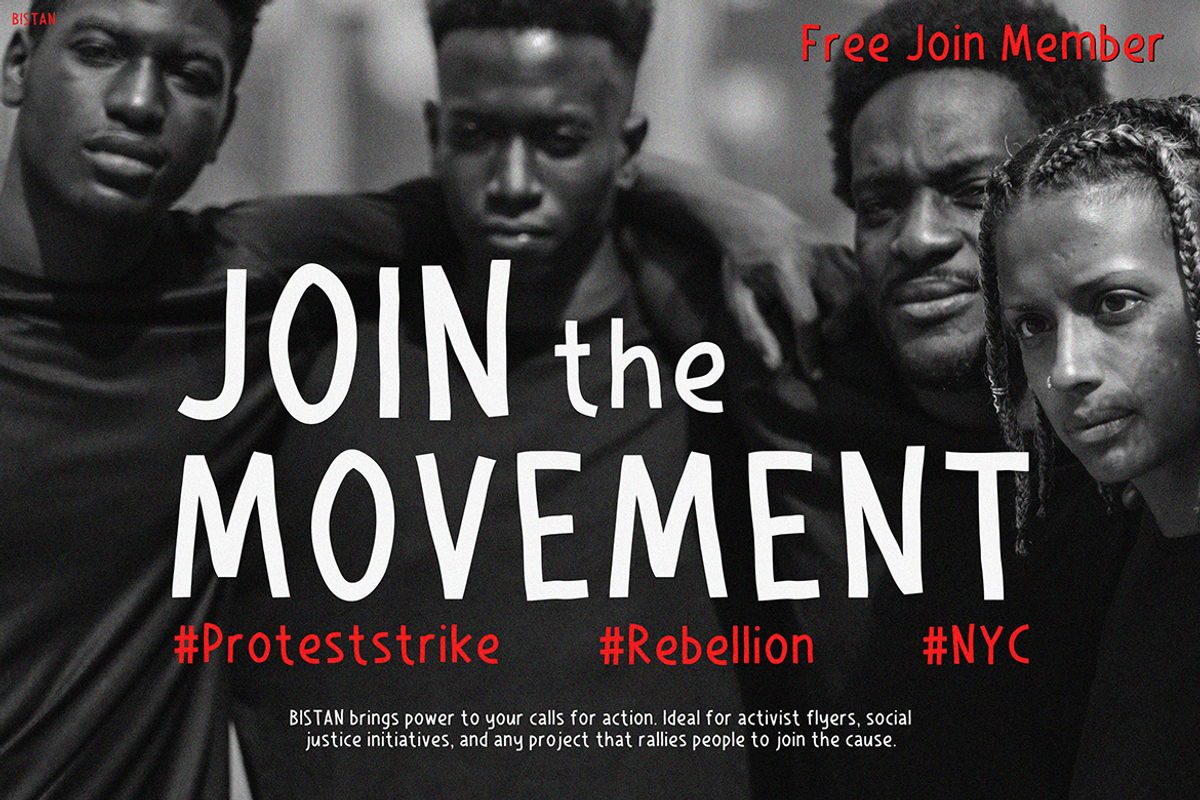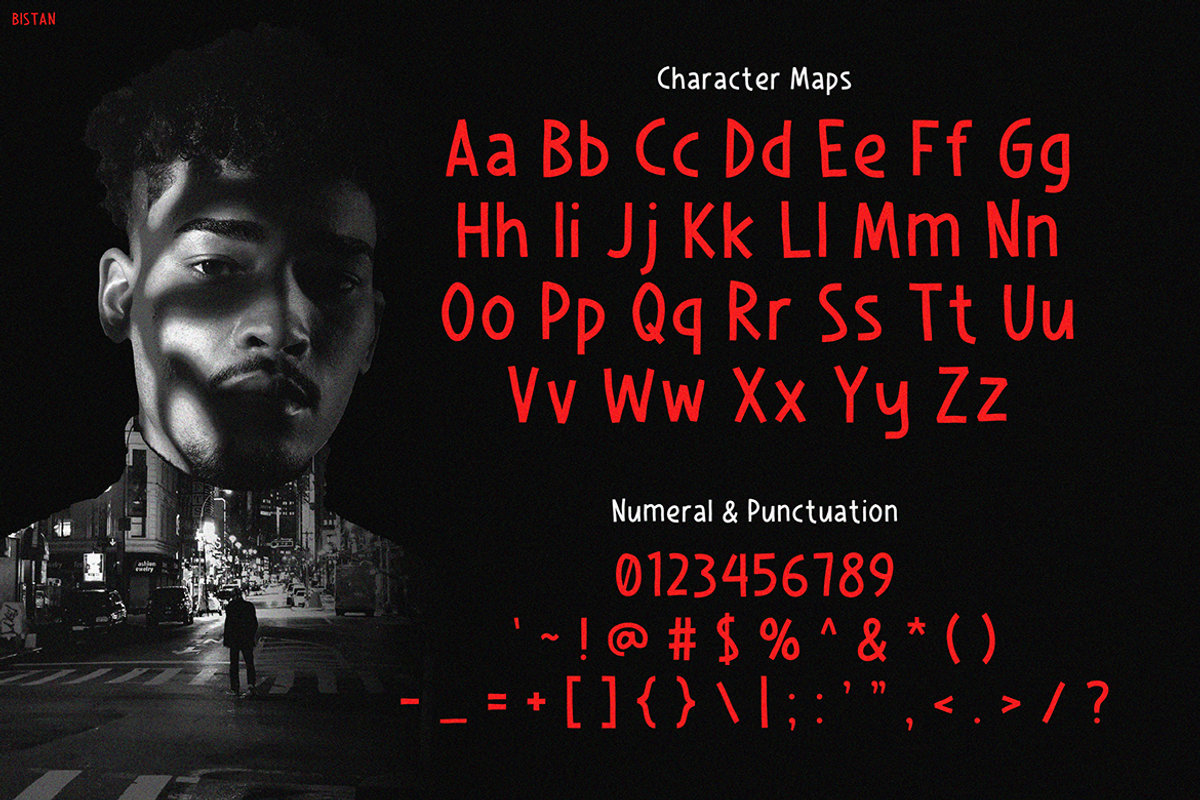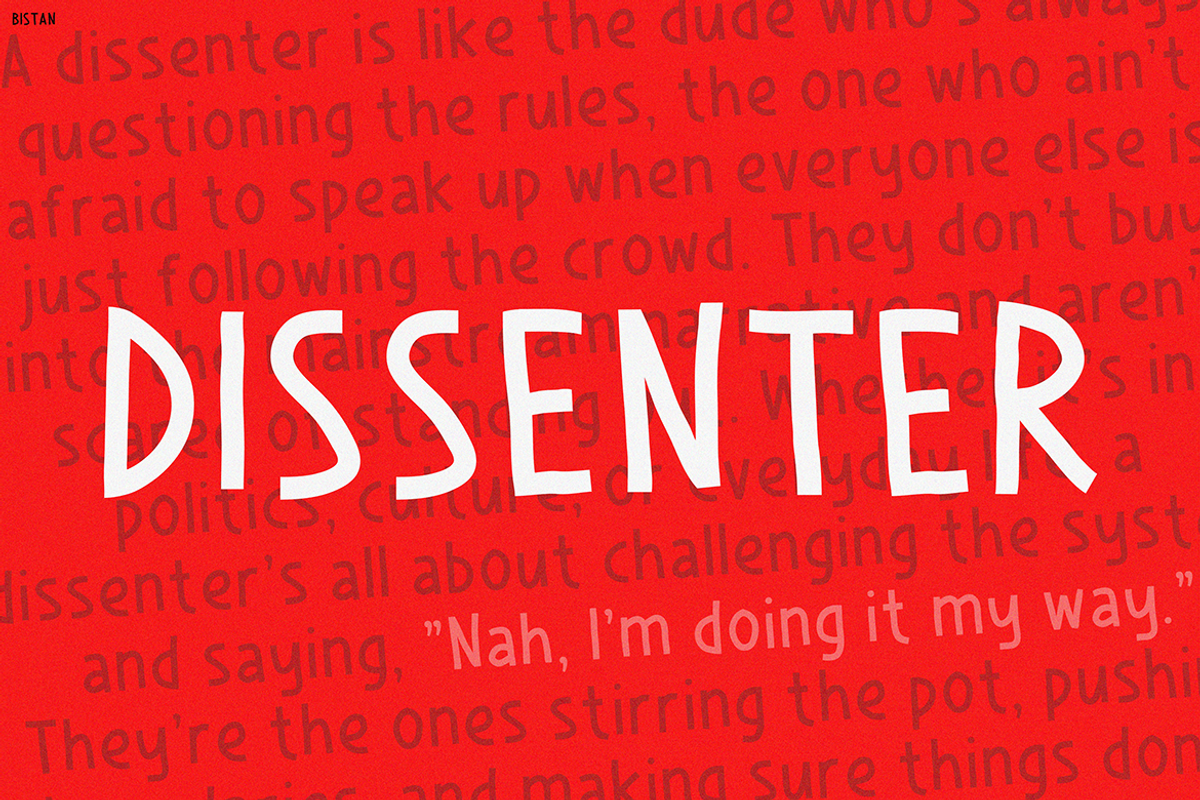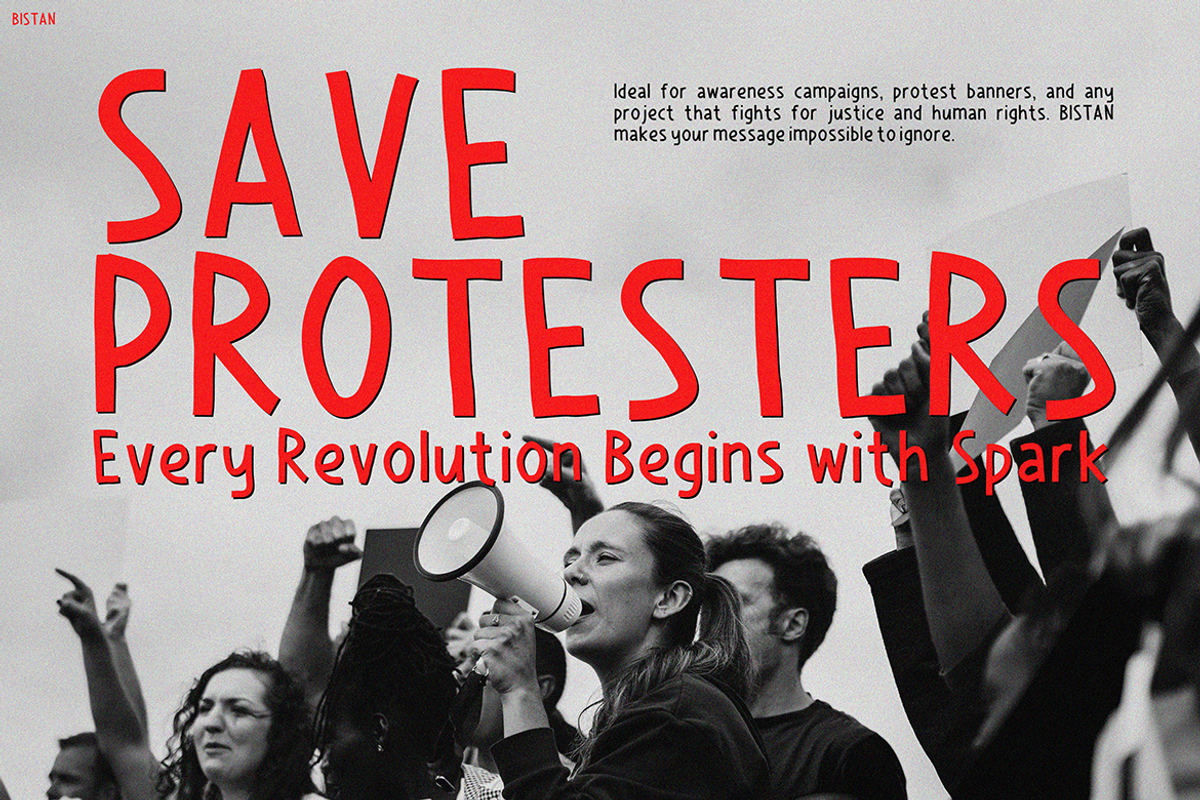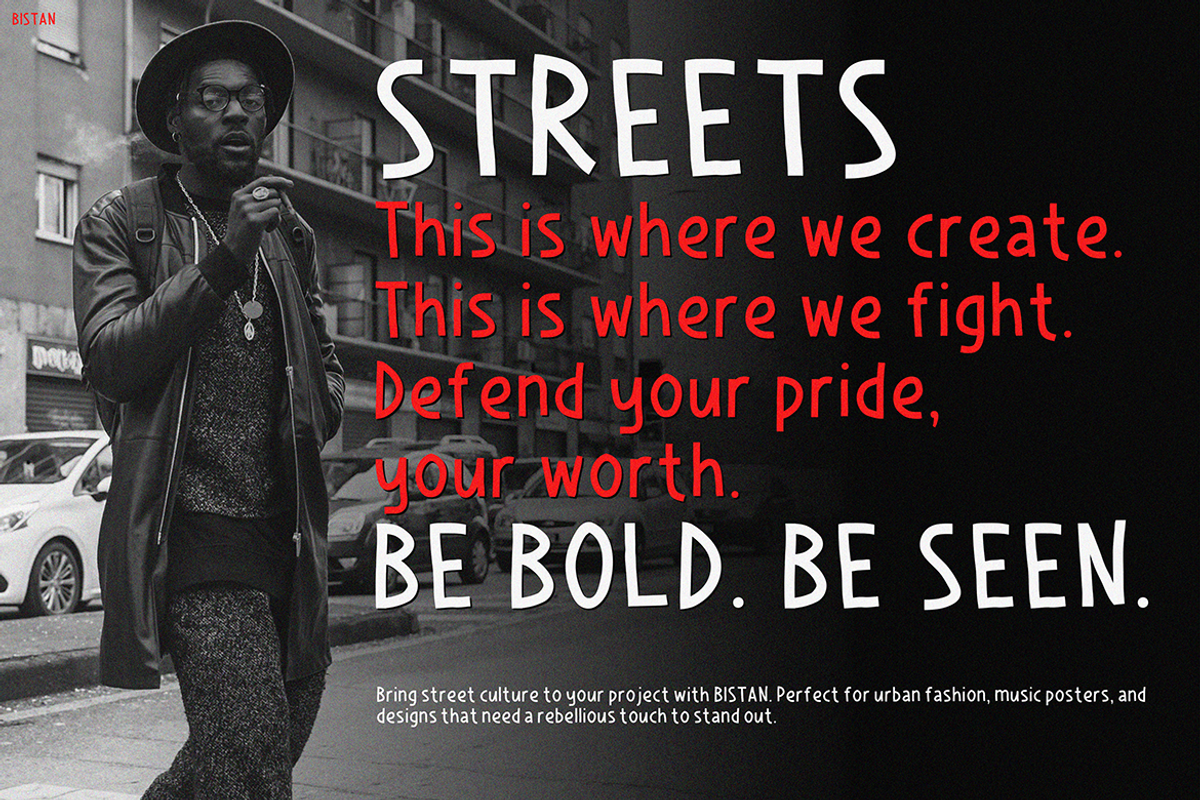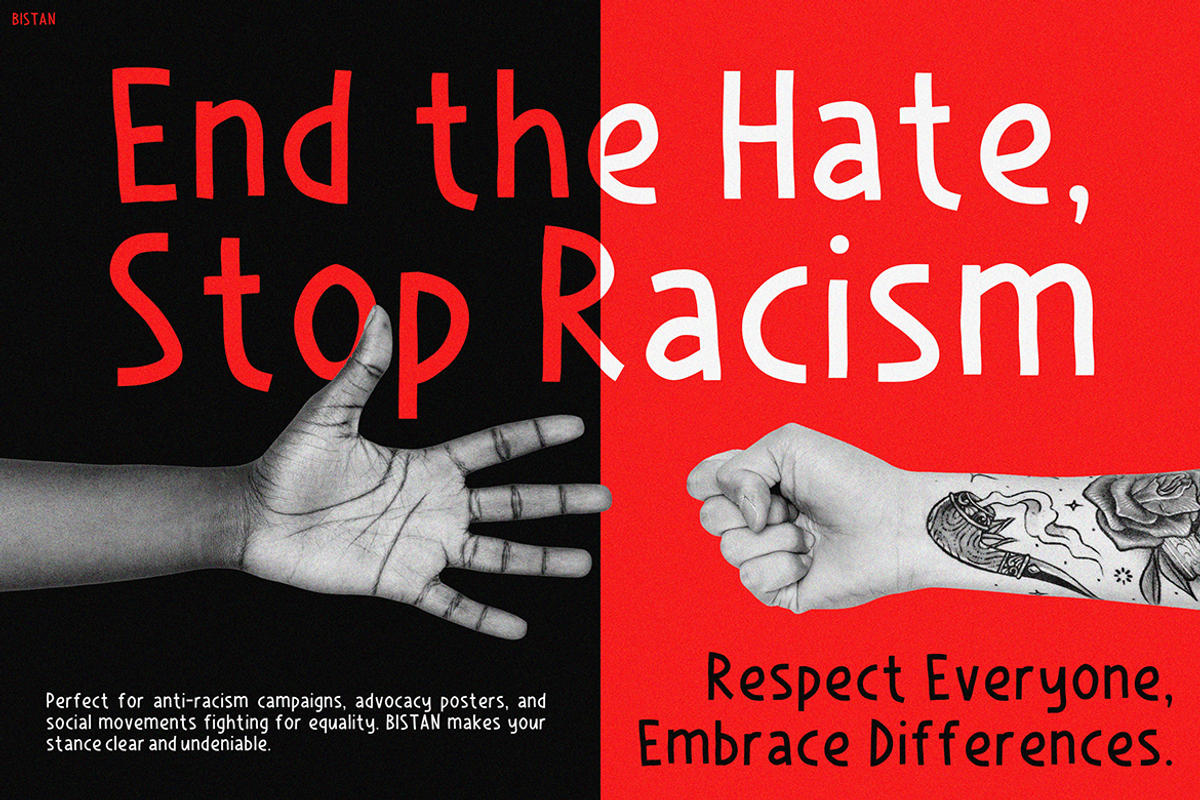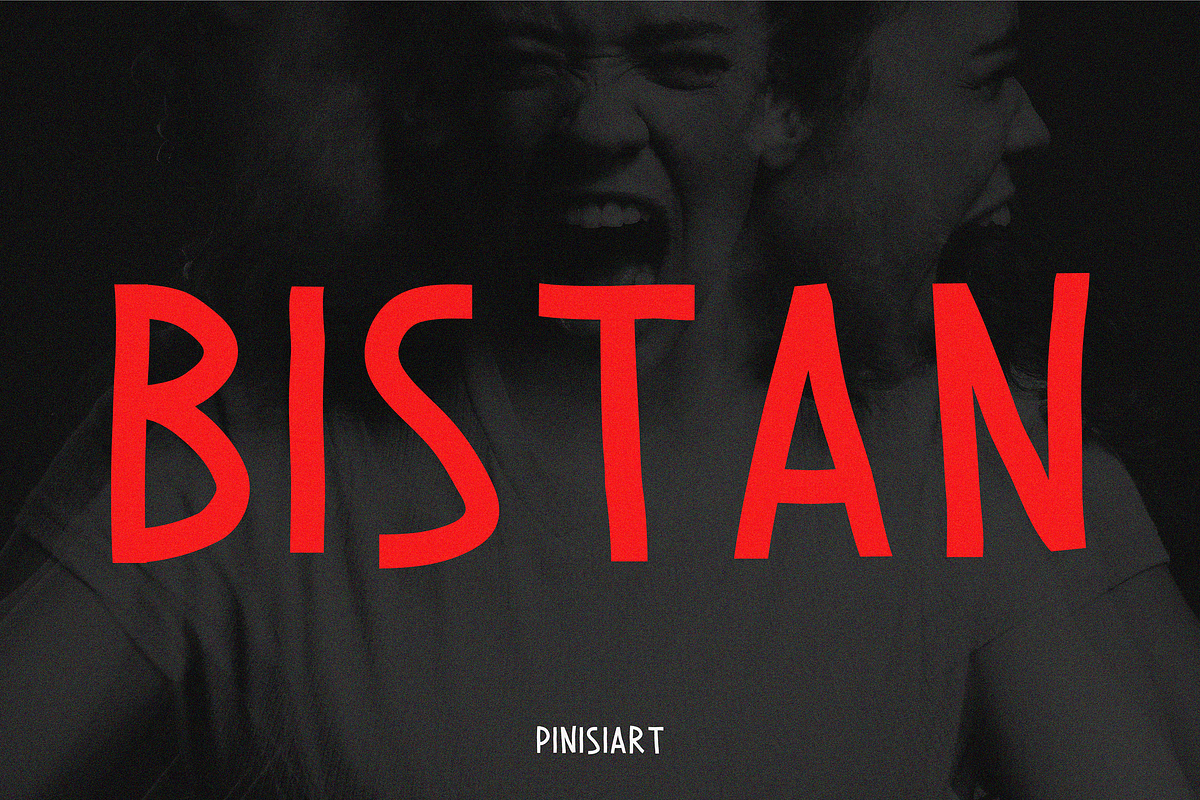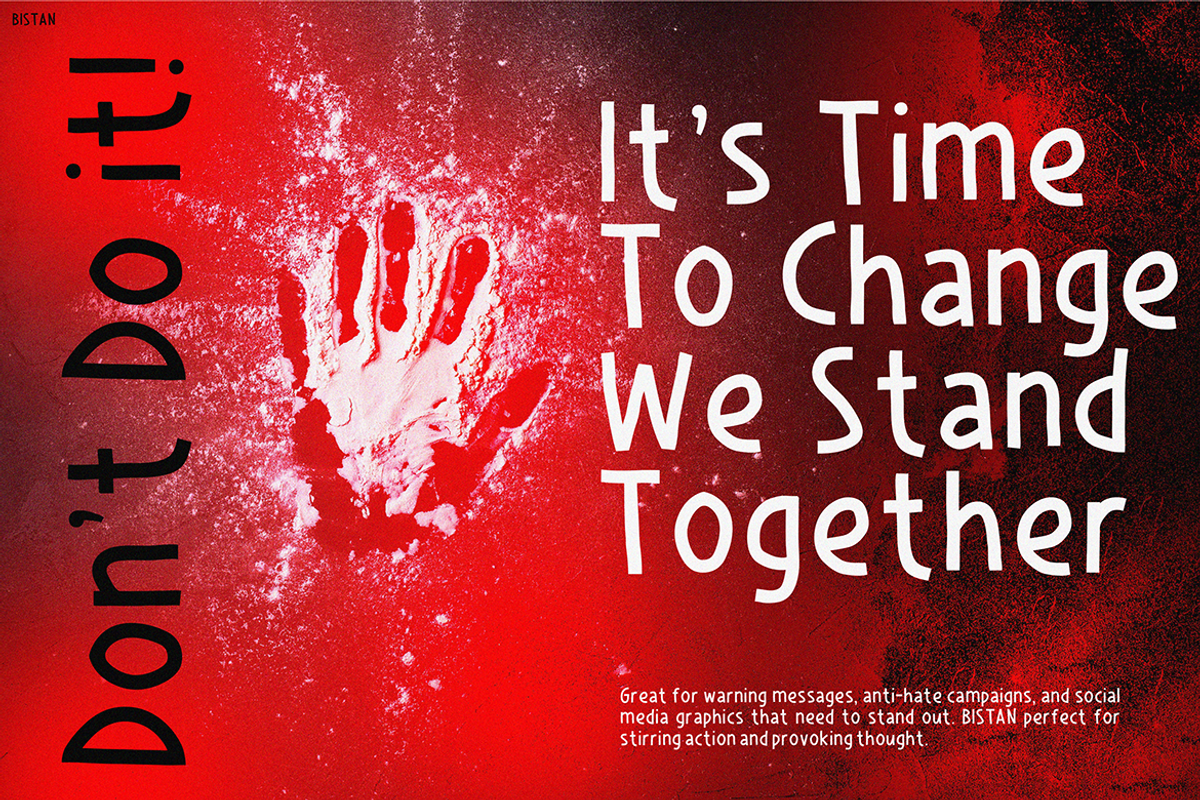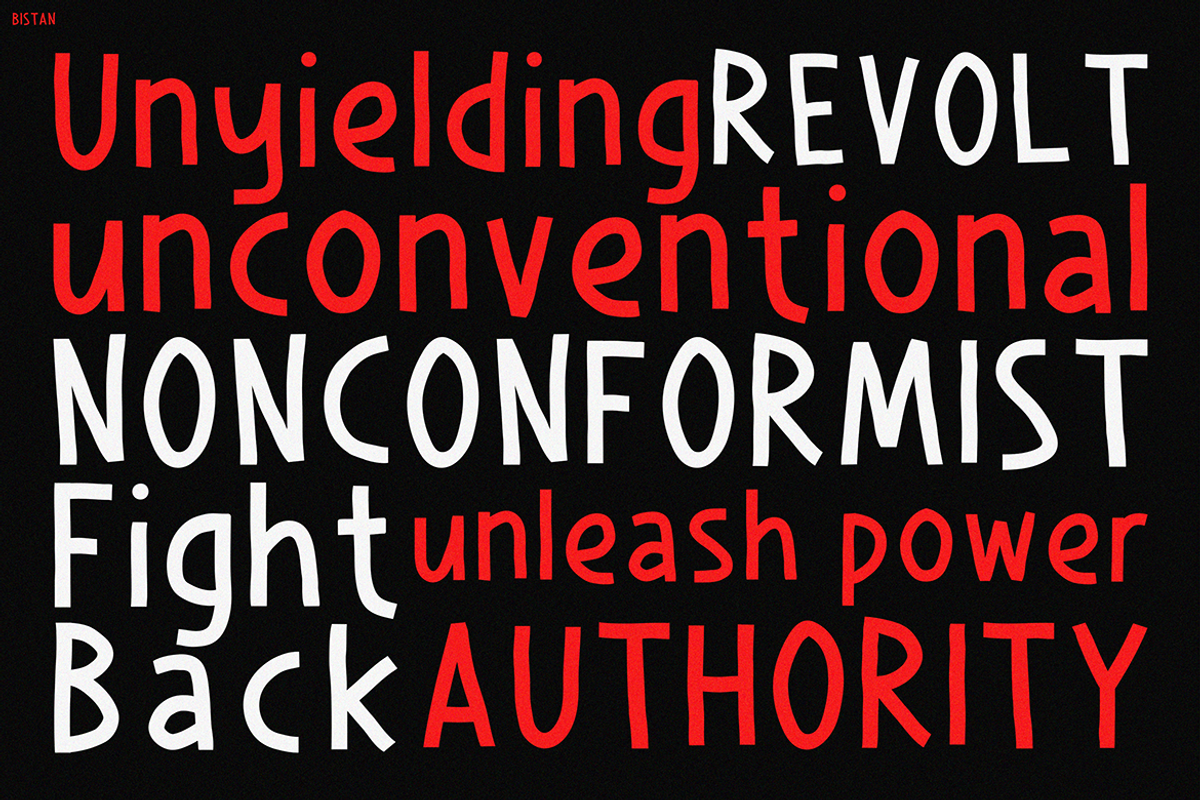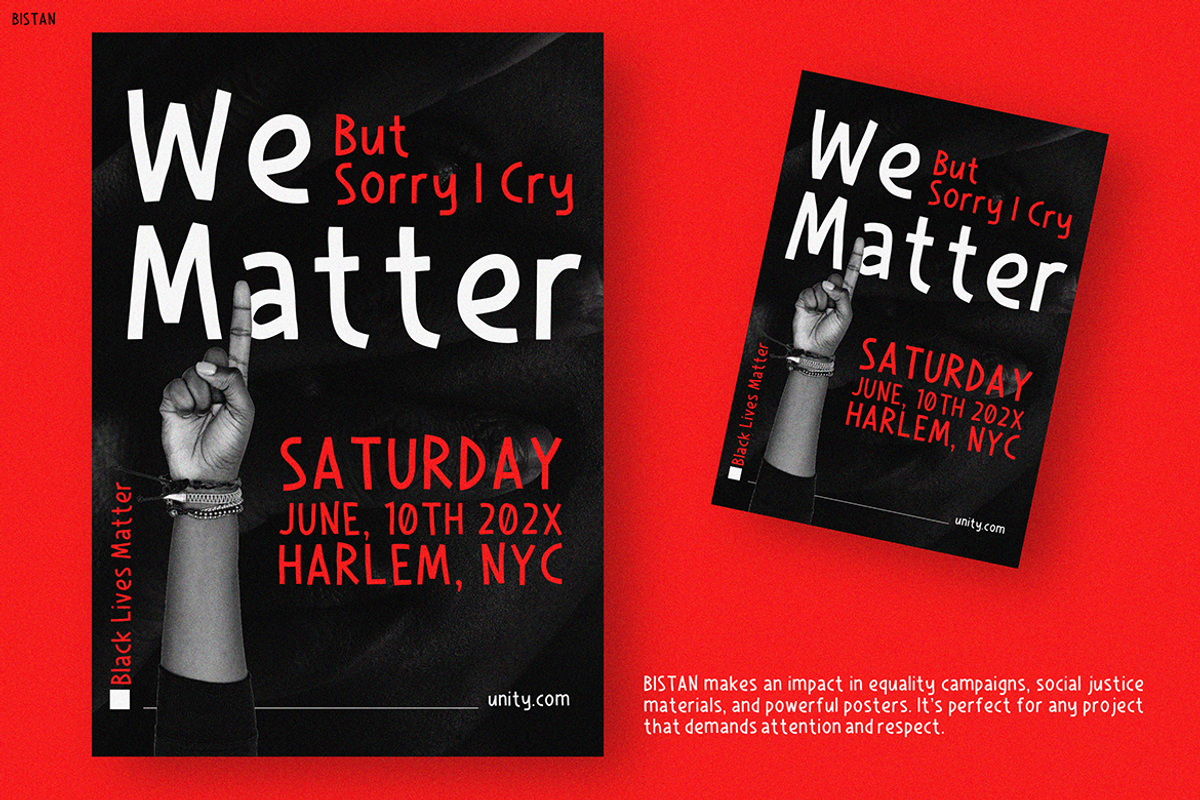
BISTAN
Graffiti Font BISTAN: A Bold Typeface for Unstoppable Expression Graffiti Font BISTAN is more than just a typeface—it’s a visual declaration of power, defiance, and creativity. At first glance, its raw, hand-drawn aesthetic pulls you in with its unapologetic energy. Not only does it break free from sterile design trends, but it also delivers a human, emotional touch that resonates with real voices. As a result, your message won’t just be seen—it will be felt.
What makes BISTAN truly unique is its imperfect, yet purposeful letterforms. While other fonts may rely on symmetry and polish, BISTAN thrives in its bold irregularity. Each stroke and curve feels alive, almost as if sketched during a moment of passion. Therefore, it’s perfect for protest art, streetwear branding, music promos, or any creative that needs to stand out. Moreover, its uneven rhythm and hand-crafted structure give your work a rebellious edge—one that refuses to blend in.